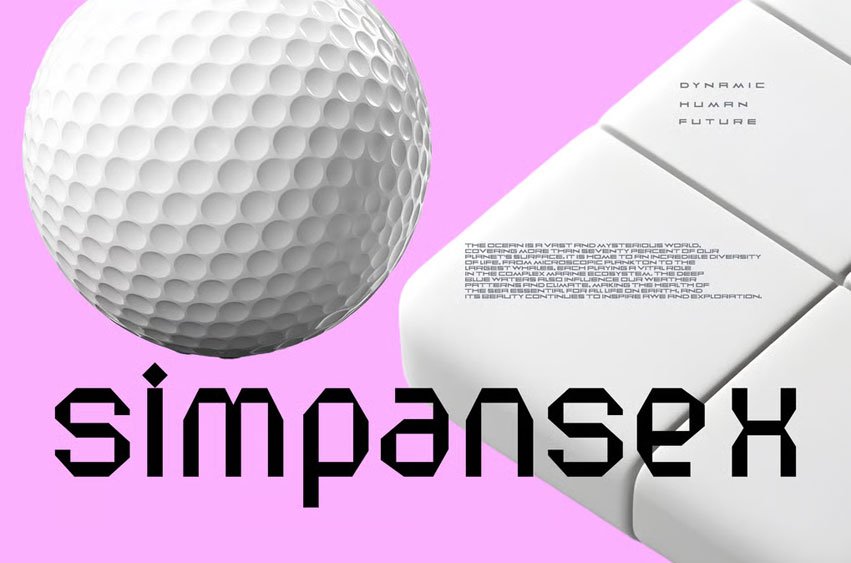
Simpanse X Font is a clean sans built for digital clarity, designed with sharp rhythm and quiet precision. Every curve follows a logic of technology—simple, structured, and futuristic in silence.
It’s not trying to decorate; it’s built to perform, like code in visual form.